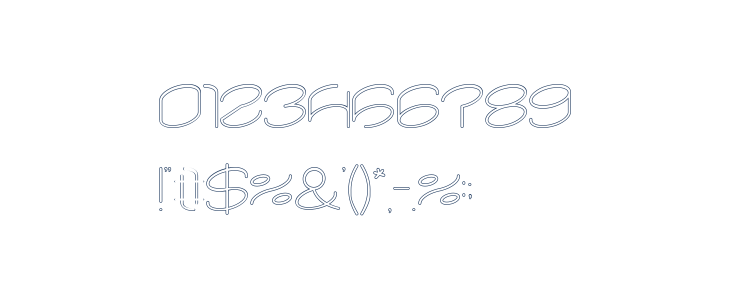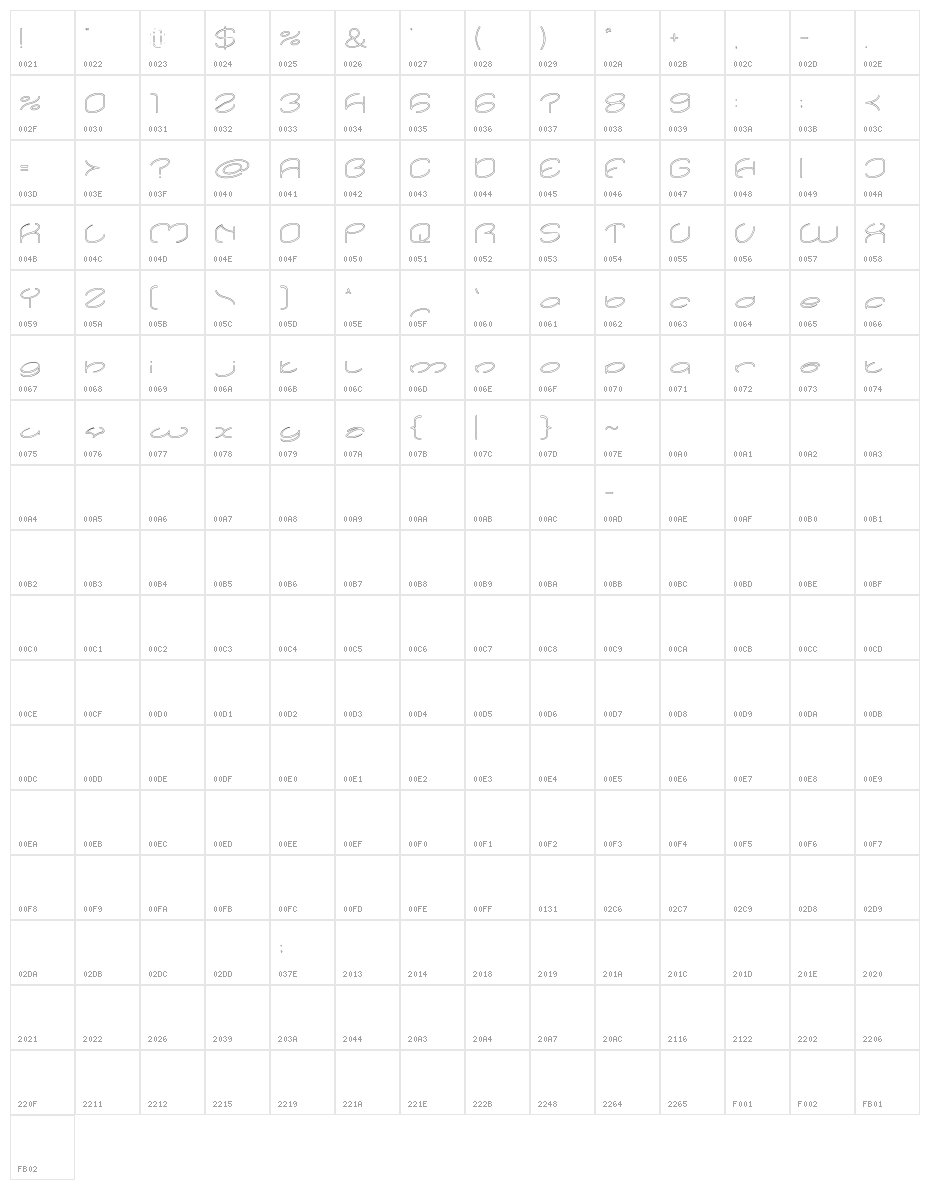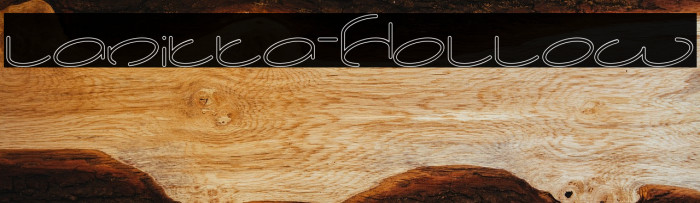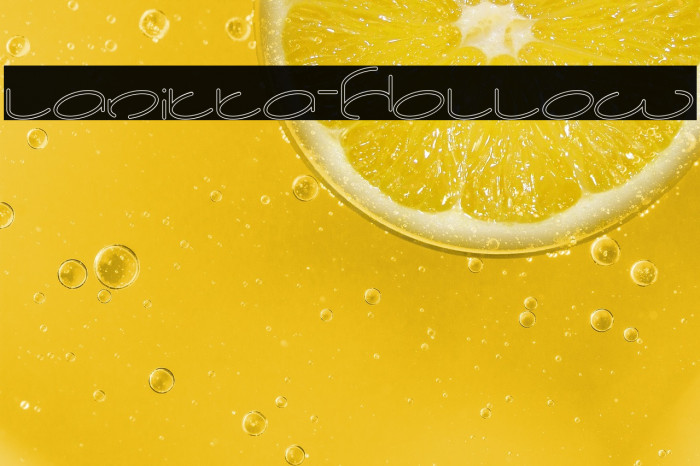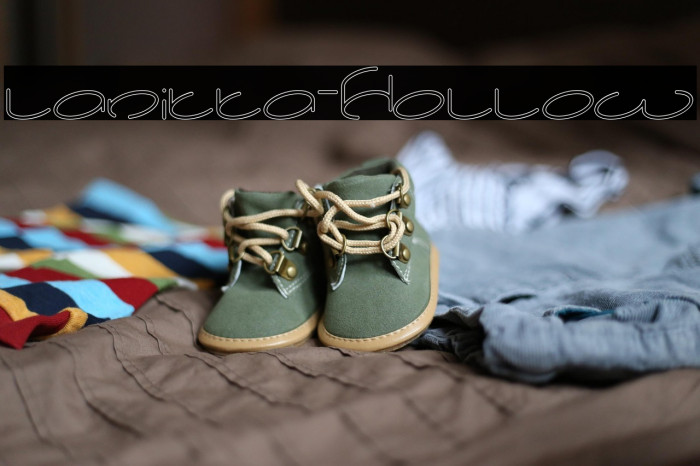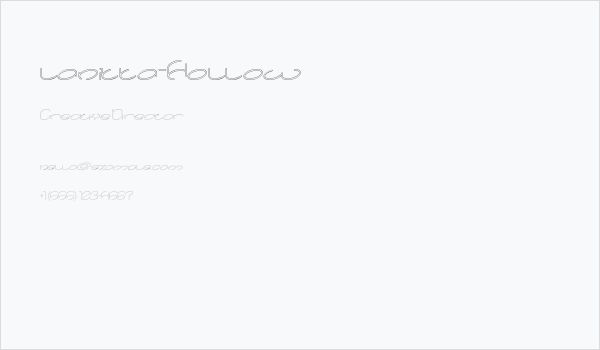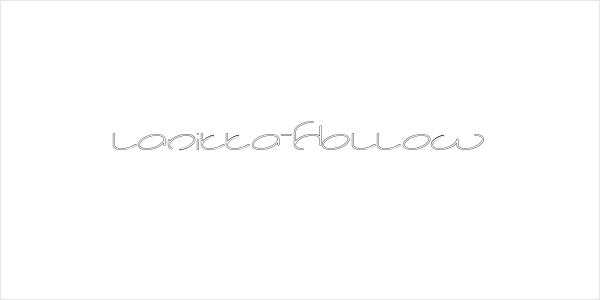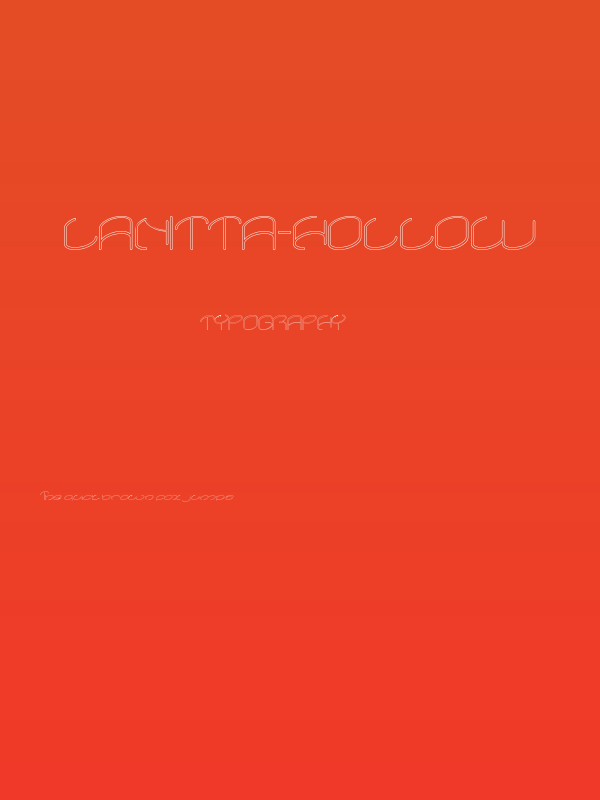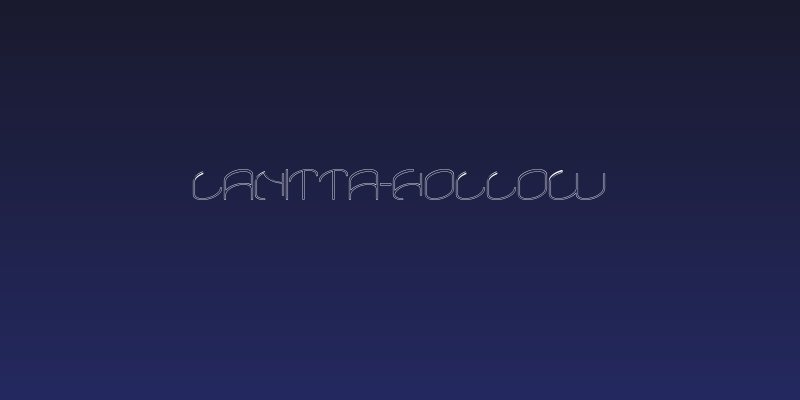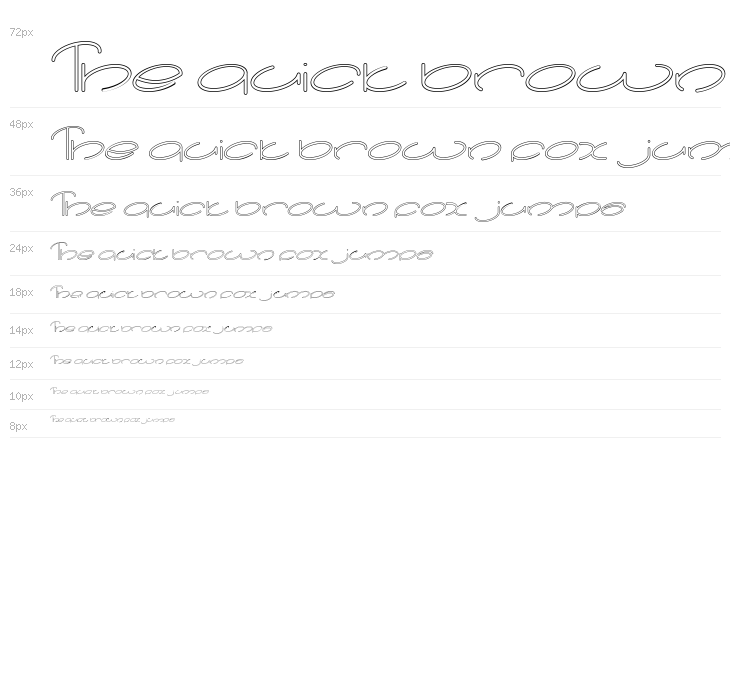
lanitta-Hollow Font
lanitta-Hollow Description
This font features a unique hollow design with a futuristic and modern aesthetic. The characters are outlined, giving them a light and airy appearance. The uppercase and lowercase letters maintain a consistent style, with smooth curves and rounded edges. The numbers and special characters follow the same design principles, ensuring uniformity across all glyphs. This font is ideal for projects that require a contemporary and innovative look, such as technology branding, modern art displays, or creative advertising campaigns.
| Use Case | Headlines, Logos, Display text |
| Proposed Projects | Ideal for technology branding, modern art displays, creative advertising campaigns, and futuristic design projects. |